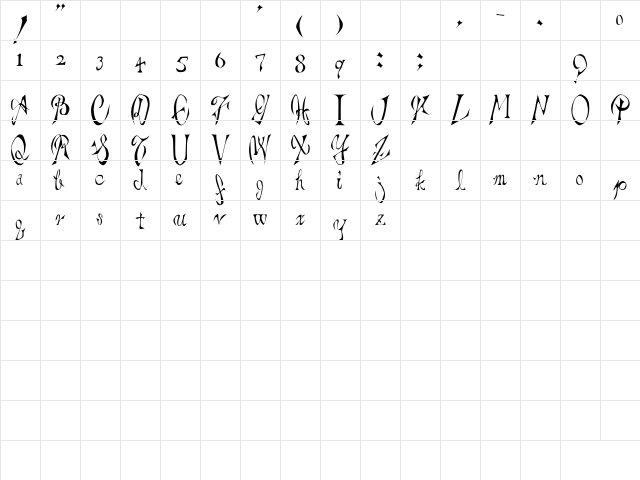
Complete RN-Lagopus Regular glyph index. Displaying only characters natively supported by RN-Lagopus Regular font.
RN-Lagopus is a composed and adaptable typeface that performs quietly and consistently across a wide range of design contexts.